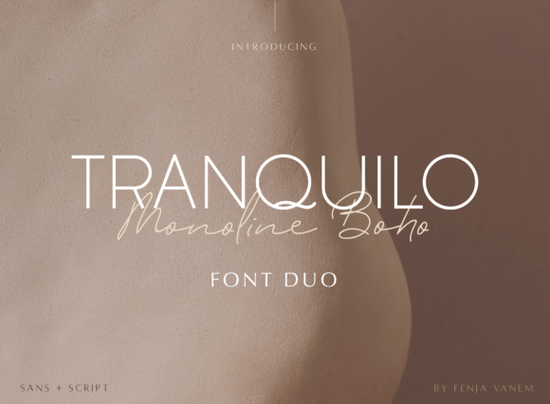
If you're looking for a font that brings calm, elegance, and just the right amount of personality to your designs, Tranquilo Monoline Boho Font might be exactly what you need. It’s a duo font two complementary styles in one package that blends clean minimalism with soft, flowing script details. Whether you’re designing a wedding invite, a brand logo, or a printable art piece, this typeface adds a quiet sophistication without overwhelming the layout.
What makes Tranquilo Monoline Boho stand out?
Unlike many fonts that feel too busy or too plain, Tranquilo Monoline Boho strikes a balance. The sans-serif version is crisp and modern, with consistent line weights that work well for headlines and body text. The script companion is delicate but confident each letter flows naturally, with subtle swashes that feel intentional, not forced.
Perfect for minimalist branding and high-end projects
This font duo works especially well when you want to convey luxury without going overboard. Think boutique packaging, premium stationery, spa branding, or lifestyle blogs. Its clean structure keeps things modern, while the script element adds warmth and human touch ideal for brands that value authenticity and thoughtful design.
You can pair it with simple layouts, neutral color palettes, and plenty of white space. The result? A look that feels curated, not cluttered. It’s not flashy, but it’s memorable and that’s often more valuable.
Where can you use Tranquilo Monoline Boho?
- Branding & logos – Great for small businesses, artisans, and creators who want a polished yet approachable identity.
- Print-on-demand products – Perfect for mugs, tote bags, greeting cards, and wall art where readability and style matter.
- Editorial design – Works beautifully in newsletters, magazines, or digital zines with a calming, artistic tone.
- Wedding and event invites – Adds a soft, romantic feel without feeling cliché.
It’s also a strong choice if you’re exploring the boho aesthetic but want something more refined than typical rustic or hand-drawn styles. This font leans into the mood of tranquility and intentionality key themes in modern design trends.
How does it compare to similar fonts?
If you’ve tried other script-sans serif duos like Breathine, More Good Vibes, or Amastay, you’ll notice Tranquilo Monoline Boho has a slightly more structured flow. While those fonts lean into playful spontaneity, Tranquilo feels more controlled and deliberate almost like handwriting done by a skilled calligrapher.
For those who love Simple House but want a bit more polish, or who enjoy the airy lines of Amsterdam Signature but need stronger contrast between styles, Tranquilo fills a sweet spot in the middle.
Before adding any font to your toolkit, it helps to test it in real projects. Many users report that Tranquilo Monoline Boho shines best when used sparingly letting the script do the talking in headers or accents, while the sans-serif handles supporting text.
Consider using it for a single product line or a seasonal campaign first. See how it responds to different backgrounds, sizes, and print formats. You’ll quickly notice its versatility and reliability.
Quick tip: When using the script version, avoid setting it in all caps unless you’re going for a bold, dramatic effect. The lowercase letters are where the elegance really shows.